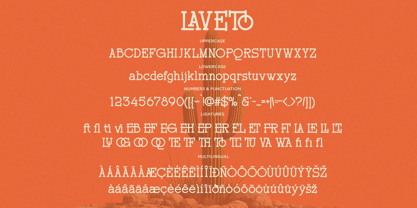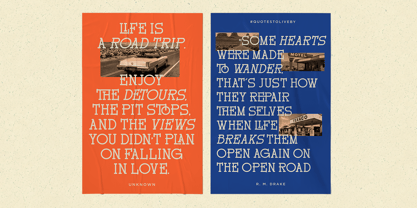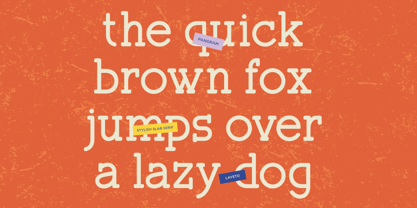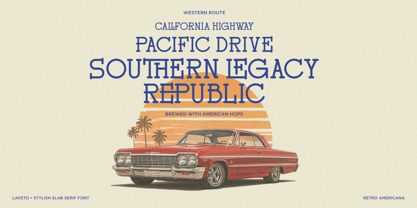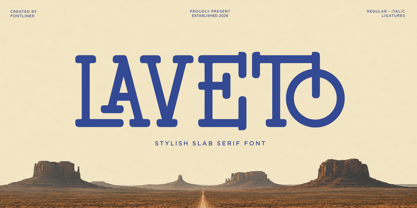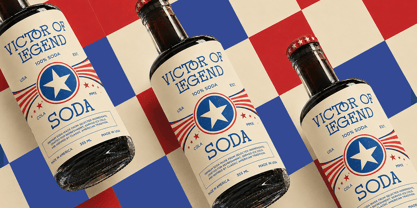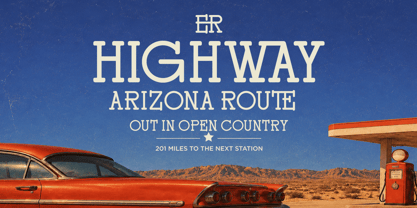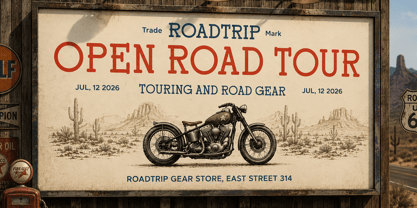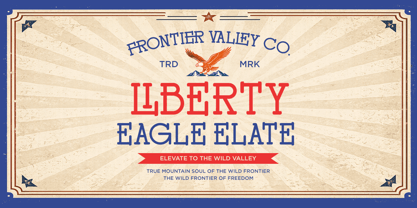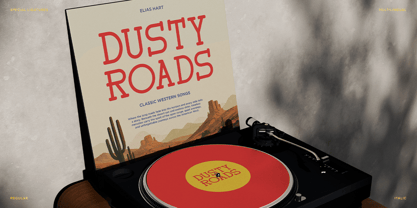
Laveto
La familia tipográfica Laveto fue diseñada por Ghina Luthfiarieska y publicada por Font Liner. Laveto contiene 2 estilos y opciones de paquete familiar. Más información sobre esta familia
Laveto is a stylish retro slab serif font inspired by classic Americana signage, vintage road trips, western landscapes, and timeless packaging design. Featuring bold slab serifs, distinctive ligatures, and elegant italic companions, Laveto captures the spirit of open highways, desert motels, heritage branding, and nostalgic advertising with a refined modern touch.
Crafted for designers seeking authentic vintage character, Laveto combines strong readability with decorative details that make every headline stand out. Its versatile letterforms work beautifully across logos, packaging, posters, labels, editorial layouts, merchandise, restaurant branding, beverage labels, apparel graphics, and retro-inspired marketing materials. The included ligatures add a unique handcrafted feel, helping your typography look custom and memorable.
Whether you're creating a western-themed identity, a classic Americana brand, a whiskey label, a vintage motorcycle poster, or a nostalgic travel campaign, Laveto delivers timeless personality and premium visual appeal. Its combination of retro charm, slab serif strength, and elegant styling makes it an essential display font for designers who love heritage-inspired typography.
• Regular and Italic Style
• Stylistic Ligatures
• Uppercase and Lowercase
• Number, Symbol, and Punctuation